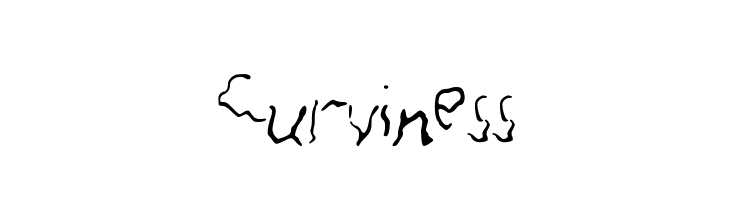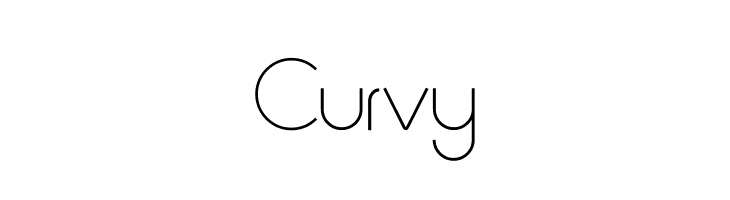
A modern, curvilinear font with smooth, flowing lines and elegant style.
A bold, curvy font with a playful and distinctive style.
A smooth, handwritten font with a personal and informal style.
A bold, distressed font with a cracked appearance, perfect for impactful designs.
A playful, bold font with rounded, bubbly characters ideal for informal projects.
A bold, playful font with rounded, bubbly characters.
( Pâmela Rodrigues )
A bold, expressive handwritten font with dynamic strokes.